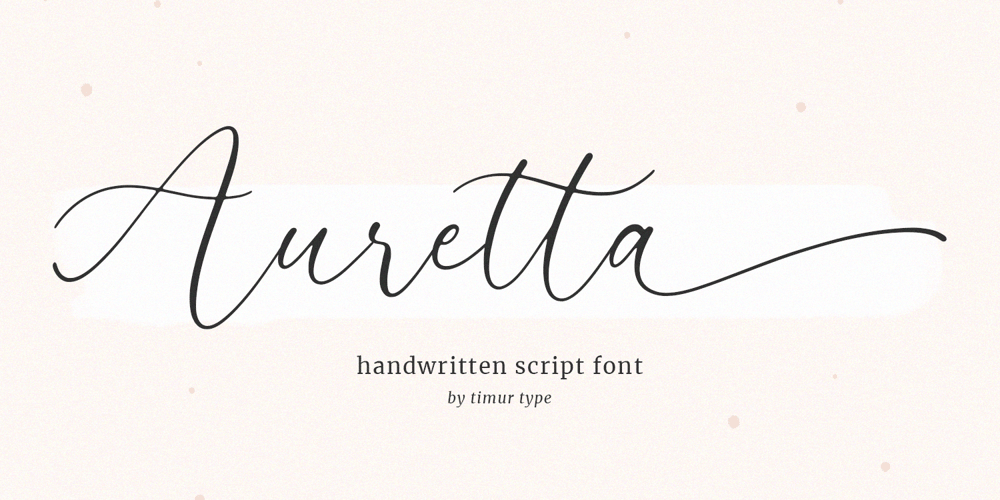
Auretta Font Family was designed by Wara Sigit Tri Pamungkas and published by Timurtype. Auretta contains 1 styles and family package options. Introducing by Timur typeProudly Present, AurettaAuretta A Modern Script FontAuretta is perfect for product packaging, branding project, megazine, social media, wedding, or just used to express words above the background.Auretta also multilingual support.Enjoy the font.Thank you!